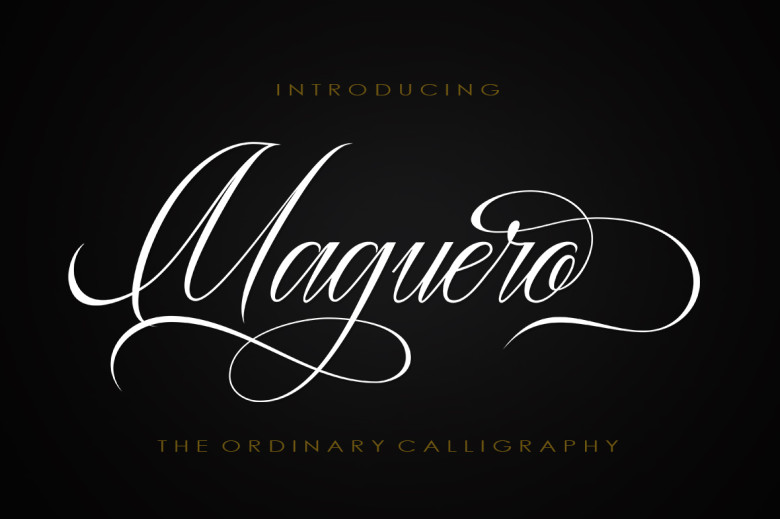
Maguero – an exquisite modern handwritten font featuring stunning swashes will leave an indelible mark in your mind! You won’t be able to stop admiring this breathtaking script!
Maguero Calligraphy Font